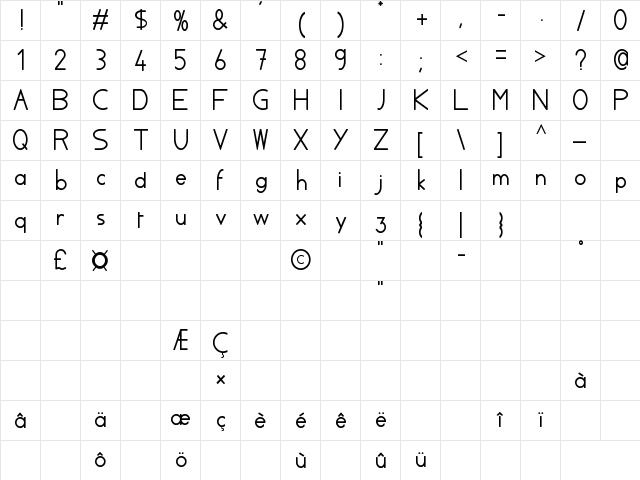
AylaCSscript Regular
Design Context for AylaCSscript Typeface
AylaCSscript flows with the natural rhythm of handwritten lettering, making it ideal for designs that call for warmth and personal expression.
Font Pairing: Combine AylaCSscript with a simple geometric sans for maximum contrast — the tension between flowing curves and clean structure is a classic typographic pairing.
Pro Tip: Use AylaCSscript for short runs of text — names, titles, or taglines. Extended body copy in script faces tires the eye quickly.